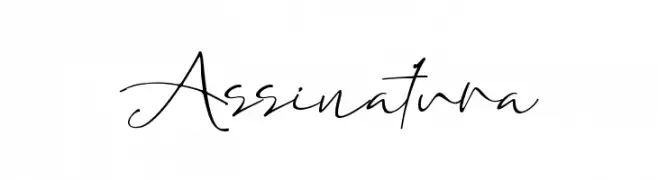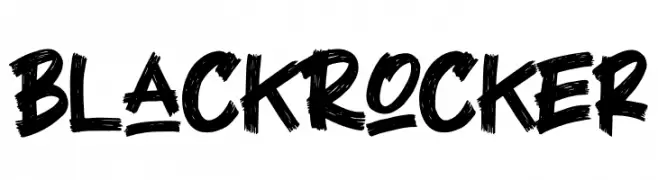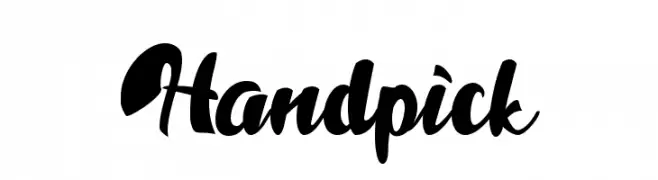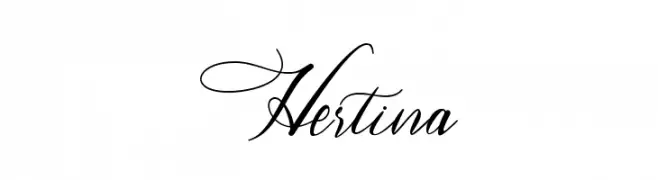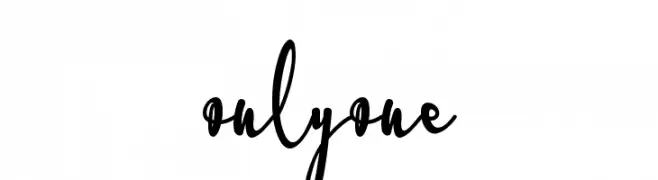
A playful, handwritten font with fluid strokes and a casual style.
A flowing, elegant script font with bold, cursive strokes.
A cursive, handwritten-style font with elegant, flowing strokes.
A bold, expressive script font with elegant, flowing letterforms.
A bold, brushstroke-style font with a textured, hand-painted appearance.
A lively, expressive handwritten font with fluid cursive letterforms.
A bold, playful font with snowy caps on each character, perfect for winter themes.
A bold, brushstroke-style font with a dynamic, hand-drawn appearance.
An elegant script font with ornate, flowing letterforms and intricate flourishes.
A lively, cursive script font with a handwritten, flowing style.